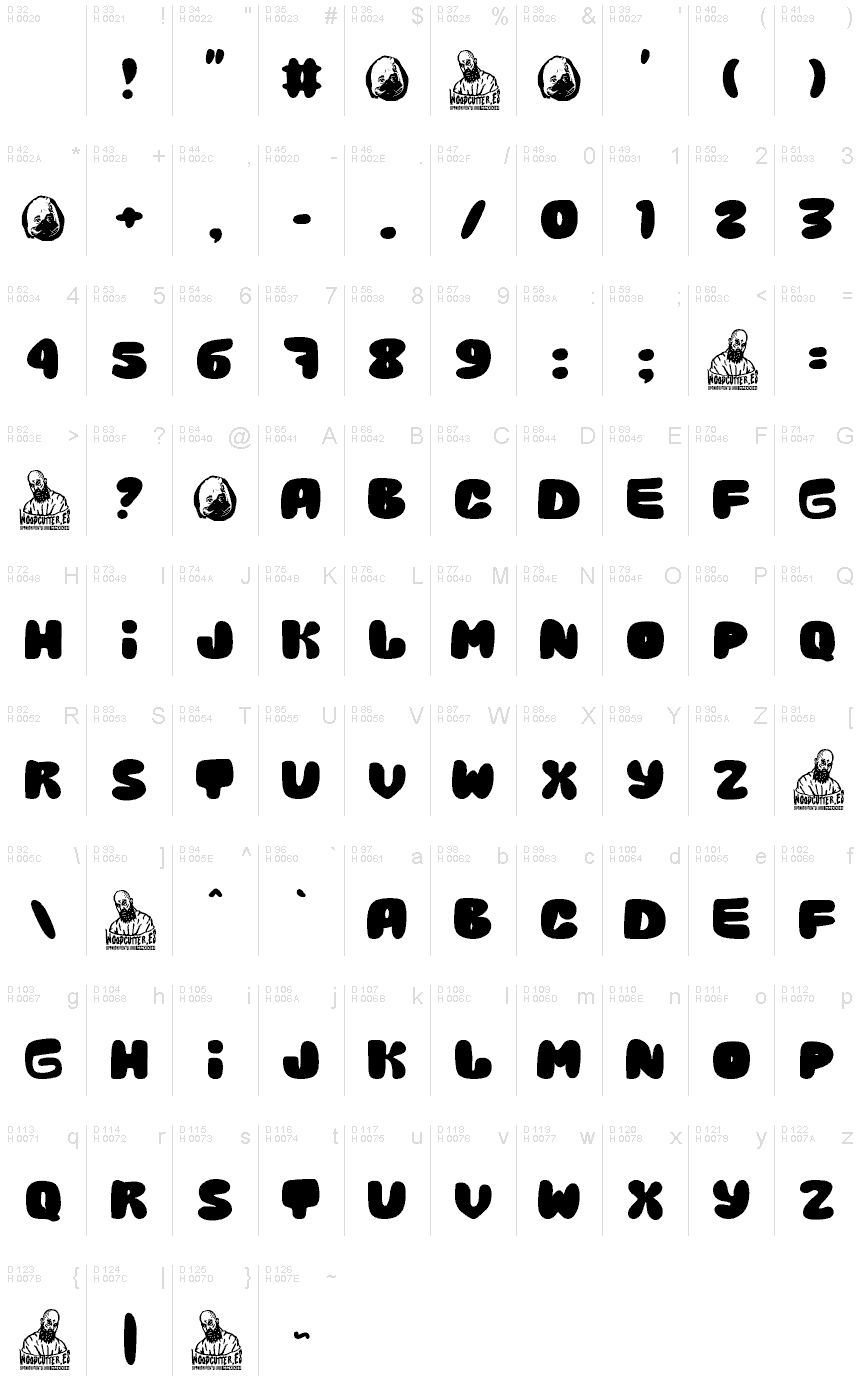
The Duck Company
The Duck Company font designed by Woodcutter is an expanded, bold display font with cartoonish influence and whimsical style. Its thick lettering gives a bold presence that hints on playful historical references such as mid-20th century advertising fonts and classic cartoon animations.
Use this free cartoon font in children’s books, products, and games; logo design for casual brands; playful marketing materials; video game interfaces and posters; package design templates for candies or cereals; headline text in magazines and newspapers.